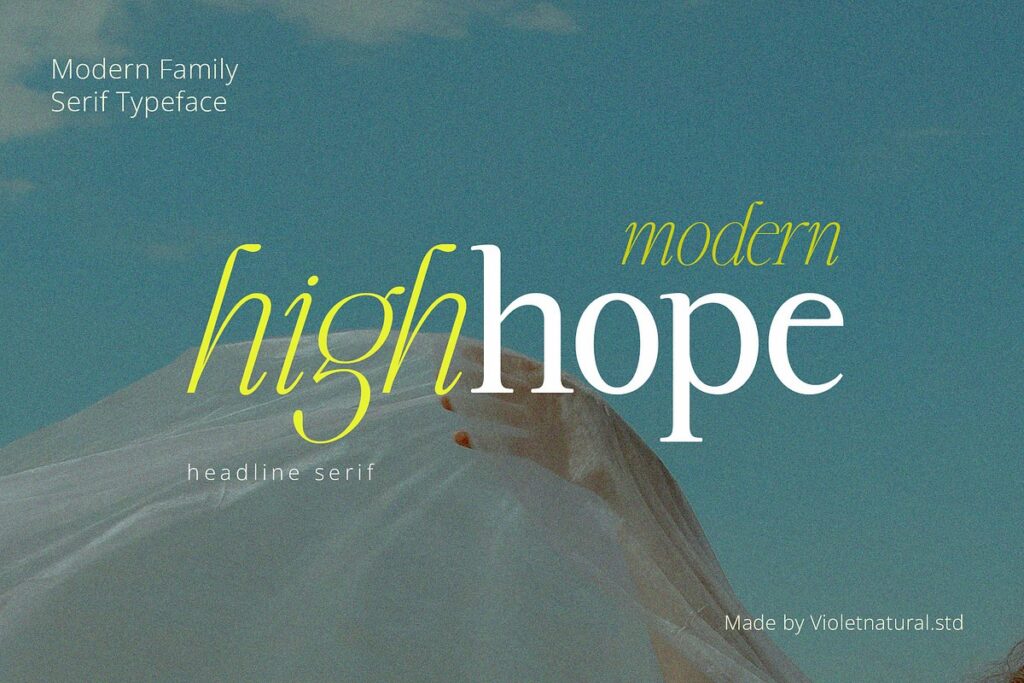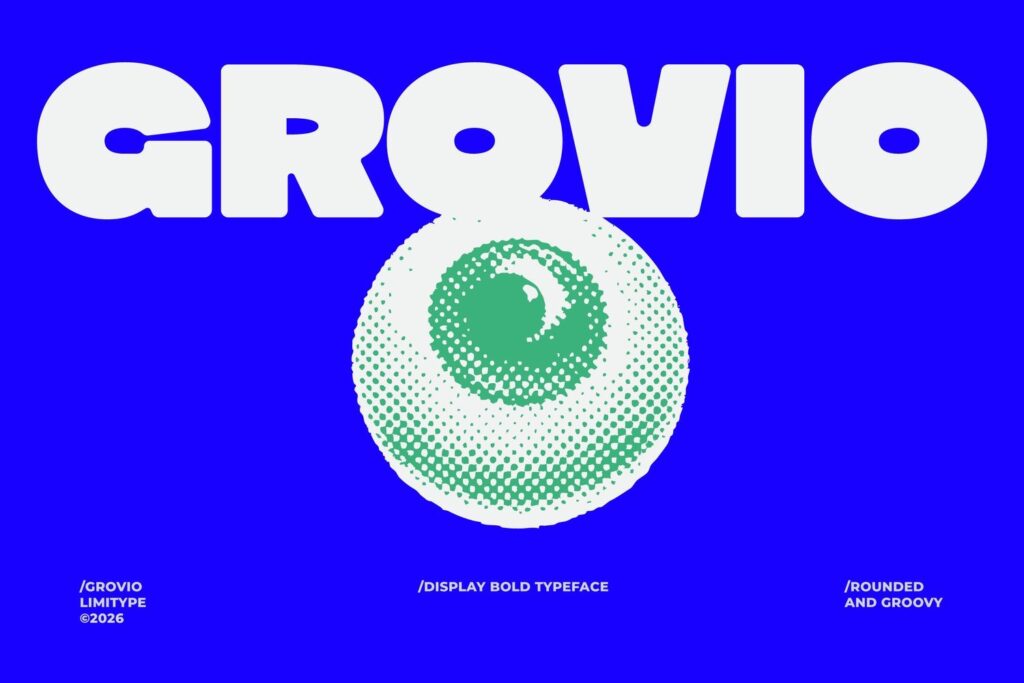
Highhope Font Family
Highhope Font Family – is a premium-quality font developed to enhance your work with a polished, modern, and visually elevated look. This font has a classic retro style but is packaged in a modern way to make your work projects more attractive and aesthetic.
Grovio – Bold Diplay Font
Grovio – Bold Diplay Font is a bold groovy display font built around heavy rounded letterforms and playful cut details. Its thick shapes, smooth curves, and distinctive horizontal cuts create a fun retro personality with a strong visual impact.
Channel Is Back Font
Channel Is Back Font is a bold and playful display typeface with a retro-inspired character. Featuring chunky proportions, rounded forms, and distinctive geometric details, it brings a fun and energetic feel to any design.